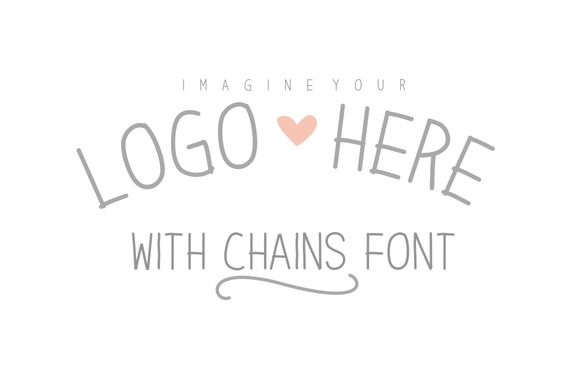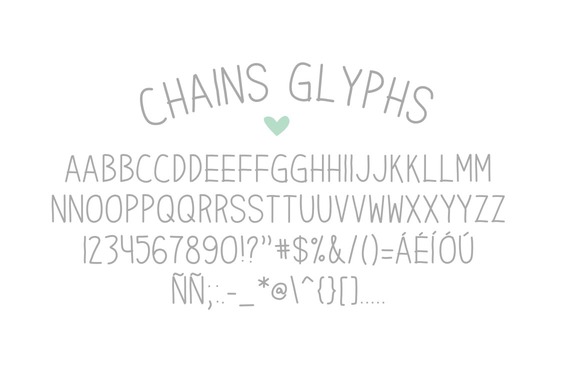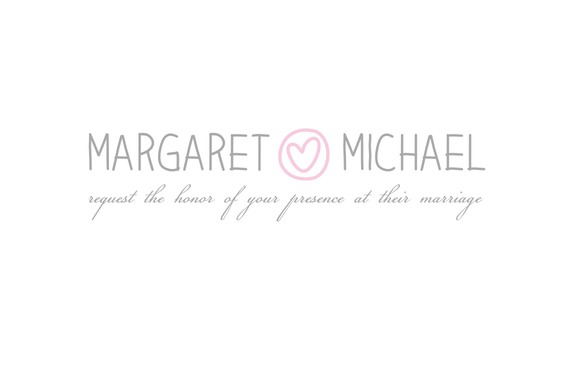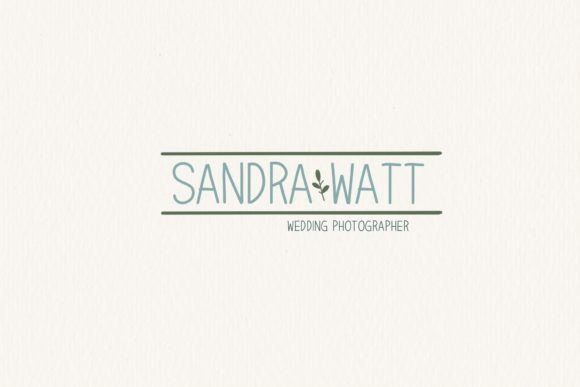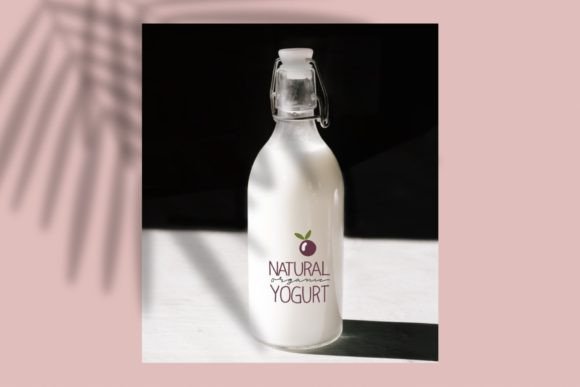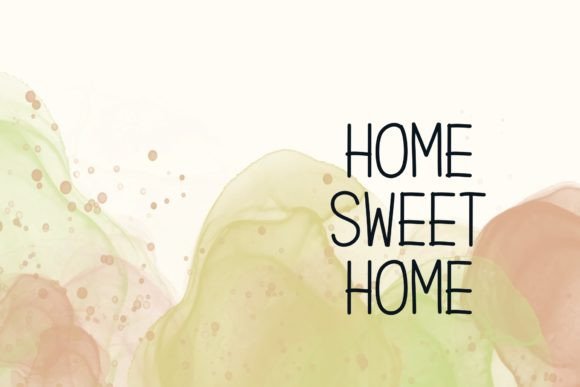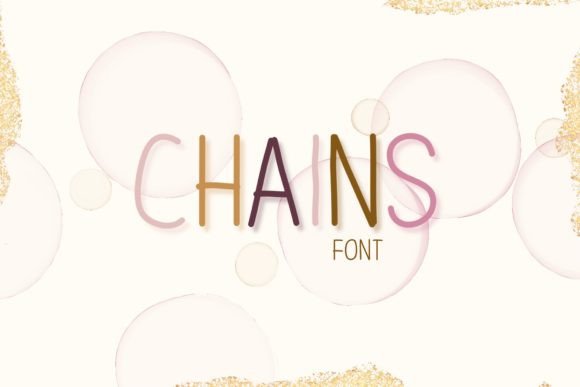
Introducing Chains Font: The Modern Condensed Font for Creative Projects
Are you a designer or crafter looking for a versatile and modern font to elevate your creative projects? Look no further than Chains Font, a sleek and condensed font that’s easy to use and perfect for a variety of applications. In this article, we’ll dive into the features and benefits of Chains Font, and explore how it can be used to take your designs to the next level.
What is Chains Font?
Chains Font is a modern condensed font designed to be both stylish and functional. Its clean lines, simple shapes, and highly legible design make it perfect for use in a wide range of creative projects, from logos and branding to crafts and DIY tutorials. Whether you’re a professional designer or a crafty hobbyist, Chains Font is an excellent choice for anyone looking for a font that’s both easy to use and visually appealing.
Key Features of Chains Font
So, what sets Chains Font apart from other fonts on the market? Here are just a few of its key features:
- Condensed design: Chains Font is designed to be compact and space-efficient, making it perfect for use in tight spaces or for creating visually appealing headings and titles.
- Modern aesthetic: With its clean lines and simple shapes, Chains Font has a distinctly modern feel that’s perfect for contemporary designs.
- Highly legible: Despite its condensed design, Chains Font is highly legible, even at small sizes.
- Easy to use: Chains Font is designed to be easy to use, with a simple and intuitive design that makes it perfect for crafters and designers of all skill levels.
Uses for Chains Font
- Logos and branding: Chains Font is perfect for creating logos, business cards, and other branding materials that need to make a strong impression.
- Crafts and DIY tutorials: Whether you’re creating handmade crafts or writing DIY tutorials, Chains Font is a great choice for adding a touch of modern style to your projects.
- Signage and displays: Chains Font is highly legible, making it perfect for use in signage and displays where readability is key.
- Digital designs: Chains Font can be used in a wide range of digital designs, from social media graphics to website headers and more.
- Experiment with different sizes: Chains Font is highly legible, even at small sizes, so don’t be afraid to experiment with different sizes to find the one that works best for your project.
- Pair it with other fonts: Chains Font pairs well with a wide range of other fonts, so feel free to get creative and experiment with different font combinations.
| Font Name | Chains Font |
| Author | Carolina Mejia |